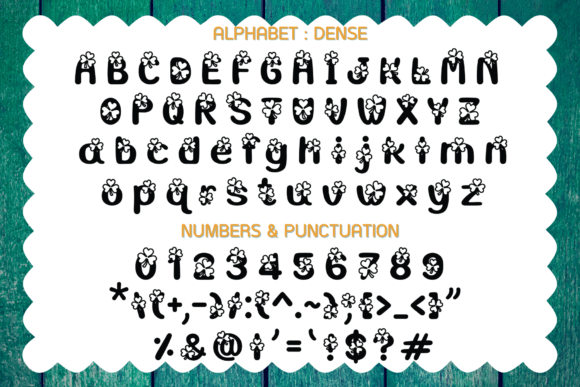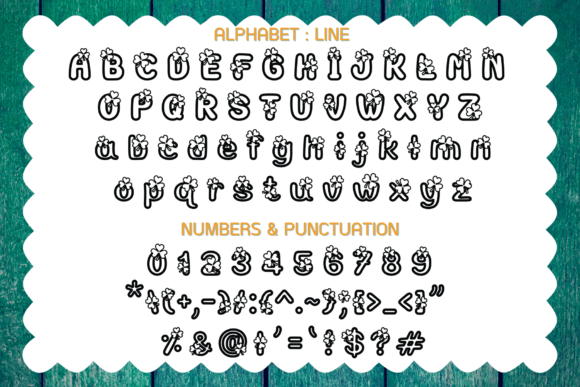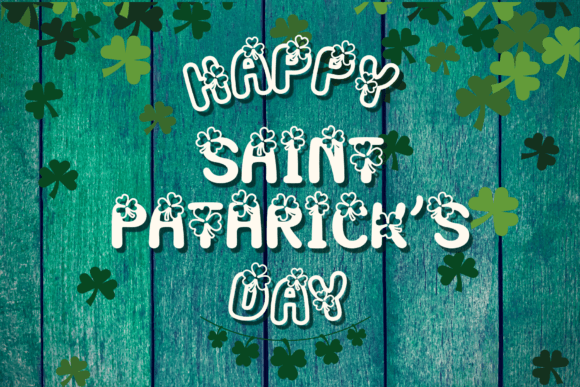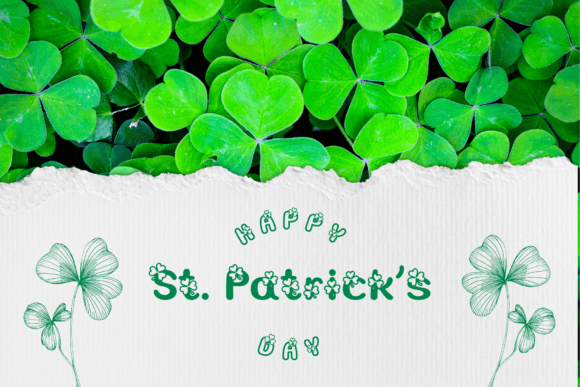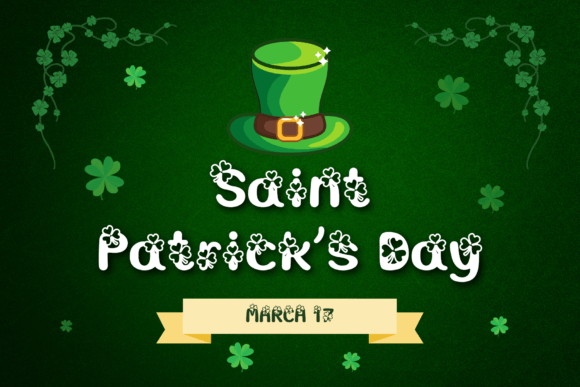
The Lucky Find: How Clover Leaf Font Became My Go-To for St. Patrick’s Day Designs
I still remember the design project that led me to discover the charming Clover Leaf font. It was a St. Patrick’s Day-themed invitation for a friend’s party, and I was struggling to find the perfect font to capture the holiday’s playful spirit. That’s when I stumbled upon Clover Leaf, a modern display font that instantly won me over with its attractive and playful letterforms featuring tiny clover leaves.
What I Love About Clover Leaf Font
- ✨ Unique and eye-catching design: The tiny clover leaves add a fun and festive touch to any design.
- ✅ Perfect for St. Patrick’s Day designs: The font’s theme is a no-brainer for St. Patrick’s Day projects, but it’s also versatile enough to use in other spring-themed designs.
- 💡 Easy to read and versatile: Despite its playful design, Clover Leaf is surprisingly easy to read, making it suitable for a variety of projects, from titles and headings to short paragraphs.
While Clover Leaf is an amazing font, it’s not without its quirks. For instance:
- 🤔 Limited use outside of St. Patrick’s Day or spring themes: The font’s theme is so strongly associated with St. Patrick’s Day that it might not be the best choice for designs outside of this context.
- ⚠️ May not work well in small sizes: The tiny clover leaves that make Clover Leaf so charming might become too detailed or intricate when used in very small sizes, potentially making the text harder to read.
The Story Behind Clover Leaf: A Designer’s Inspiration
Clover Leaf was designed with the intention of capturing the fresh and festive spirit of St. Patrick’s Day. The designer aimed to create a font that was not only thematic but also modern and versatile. Inspired by the simple beauty of clover leaves, the designer incorporated these elements into the letterforms, creating a unique and eye-catching font.
Q: What makes Clover Leaf font unique?
A: Clover Leaf font is unique due to its incorporation of tiny clover leaves into its letterforms, making it a perfect fit for St. Patrick’s Day and spring-themed designs.
Q: Does Clover Leaf support OpenType features?
A: Yes, Clover Leaf supports OpenType features, allowing you to access different stylistic alternates, glyphs, and other typographic variations to customize your text.
Q: Is Clover Leaf suitable for body text?
A: While Clover Leaf is primarily designed as a display font, it’s surprisingly easy to read. However, for longer paragraphs or body text, you might want to consider a simpler font for better readability.